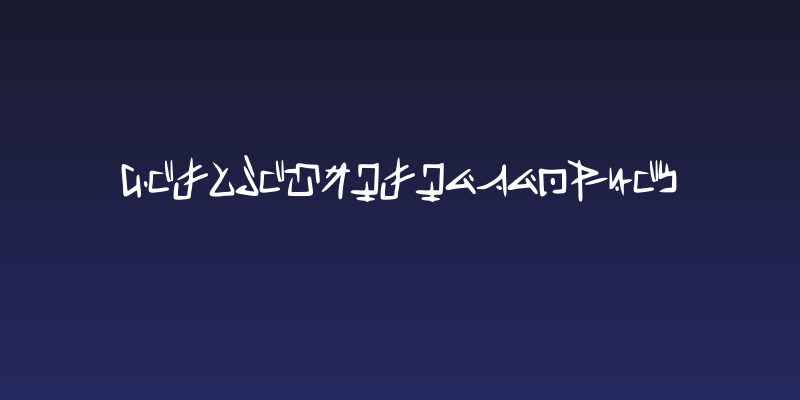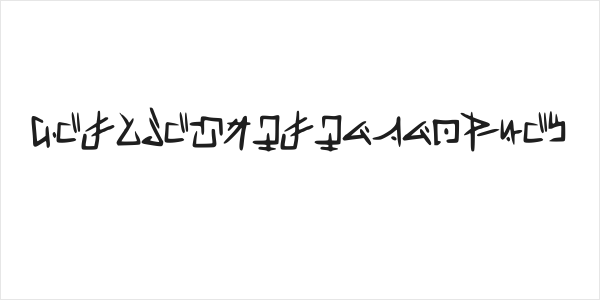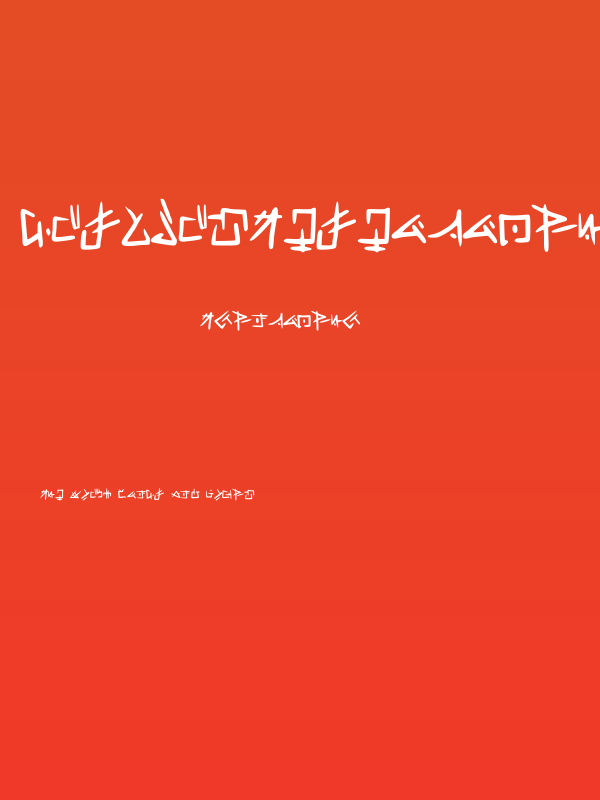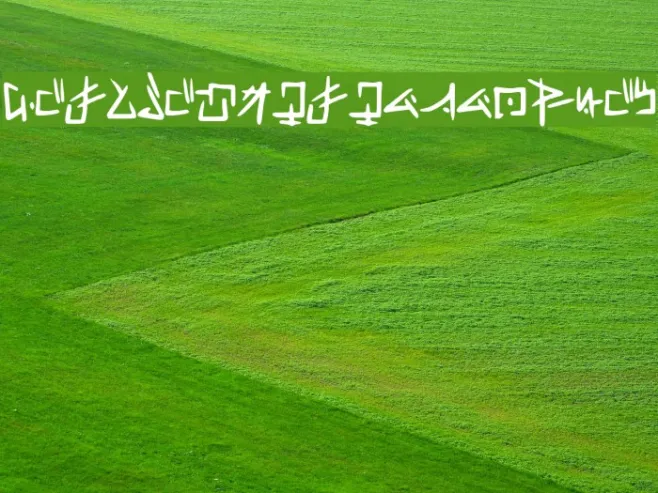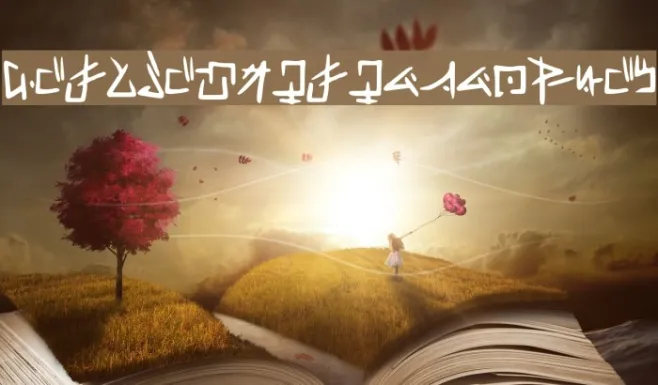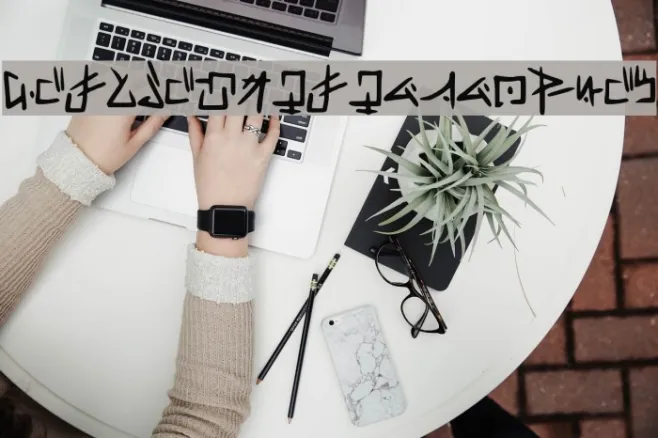
WindListenerGraphic Font
WindListenerGraphic Description
This font features a highly decorative and abstract style, reminiscent of ancient scripts or symbolic writing systems. The characters are composed of bold, angular strokes with a consistent thickness, creating a uniform appearance across the set. Each letter and symbol is unique, with intricate details that suggest a handcrafted or artistic origin. The overall design is striking and visually engaging, making it suitable for creative and unconventional projects. The font's distinctive style is not intended for readability in large blocks of text but rather for artistic expression and visual impact.
| Use Case | Logos, Posters, Artistic projects |
| Proposed Projects | Ideal for artistic projects, logos, posters, or any design requiring a unique and eye-catching typeface. |